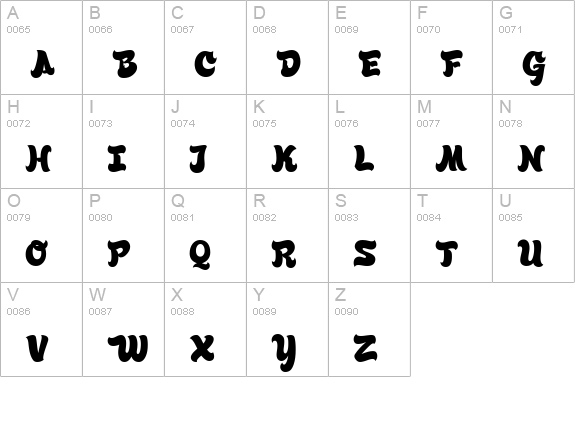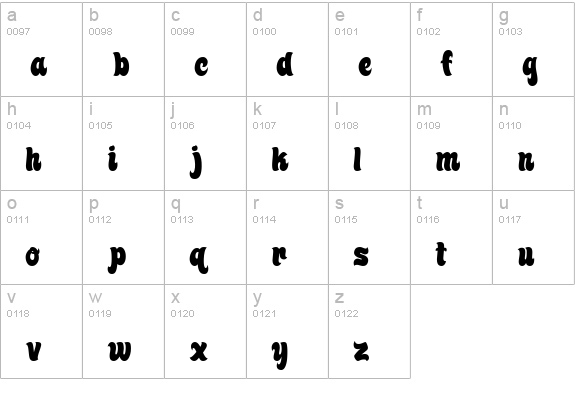
Fink Brush font is a modern and stylish typeface that exudes creativity and sophistication. With its elegant brush strokes and unique letterforms, this font is perfect for adding a touch of flair to your design projects. Whether you're working on branding, packaging, invitations, or any other creative endeavor, Fink Brush font will make your text stand out.